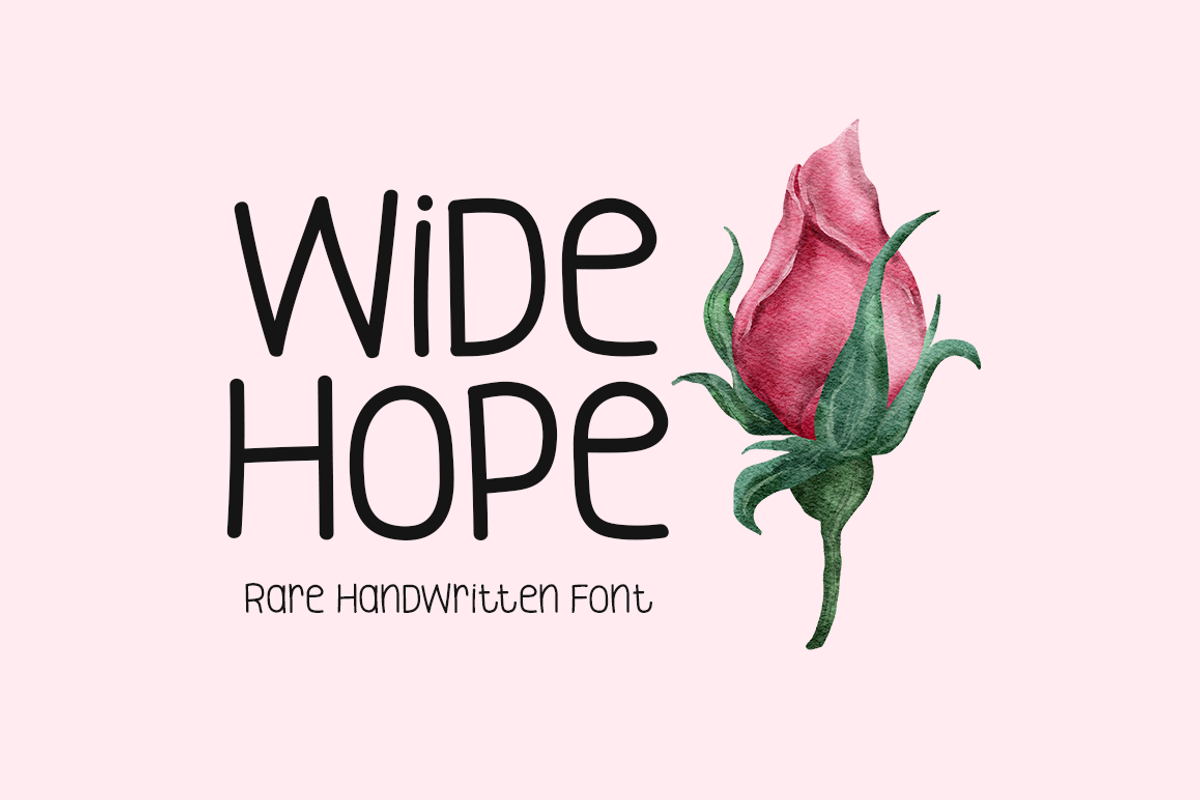
The Wide Hope Typeface Free Download is a modern and versatile typeface designed to bring a bold and stylish touch to your designs. Featuring wide, clean letterforms, this font is perfect for creating impactful logos, headlines, posters, and branding materials. Whether you're working on a contemporary brand, digital content, or promotional materials, Wide Hope adds a striking and sophisticated look to your projects.
Wide Hope Typeface Free Download is ideal for designers looking for a font that combines modernity with readability. Perfect for bold, high-visibility designs, this font will help your work stand out. Download it today and bring a sleek, professional feel to your creative projects with Wide Hope’s contemporary style!